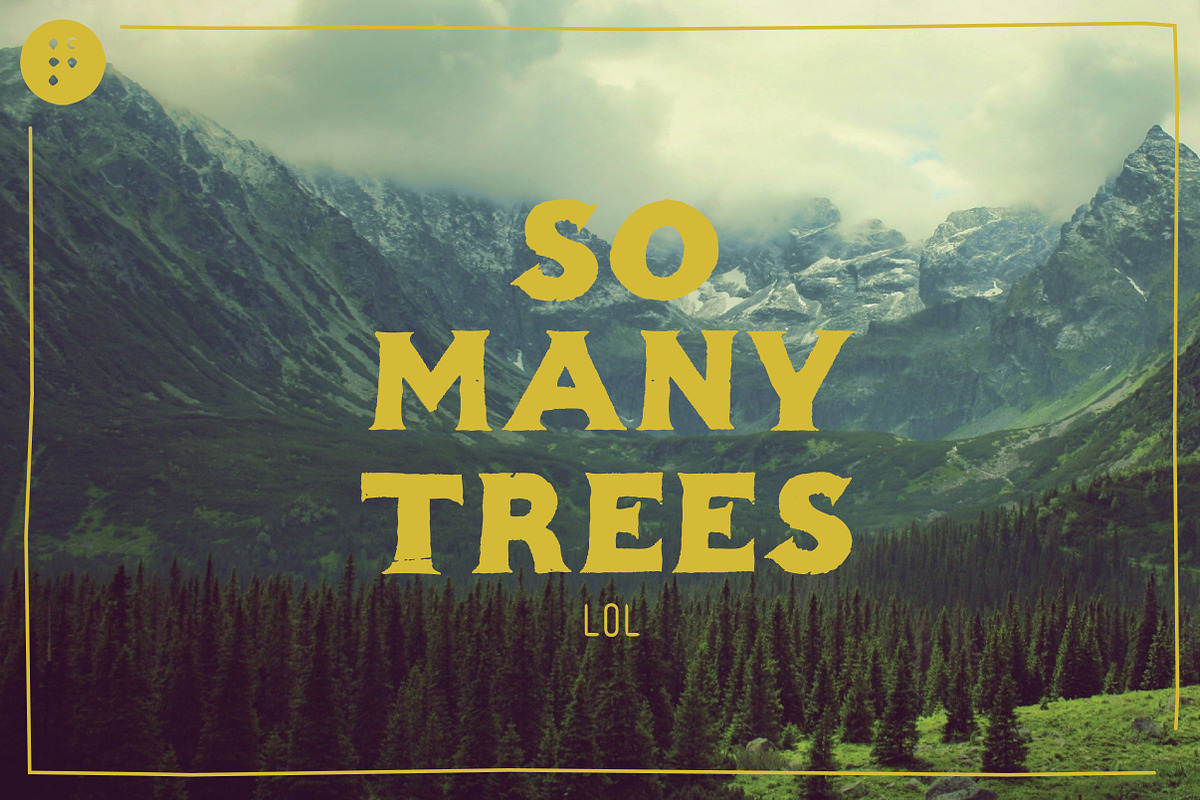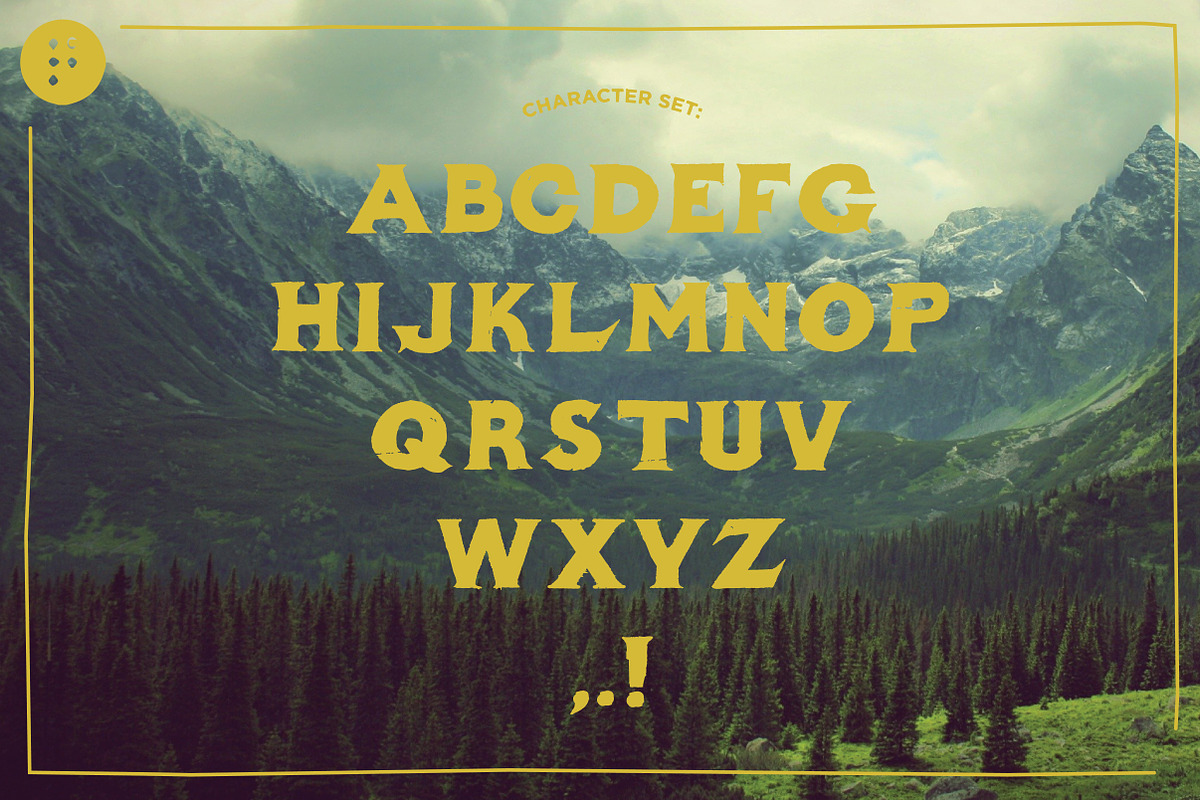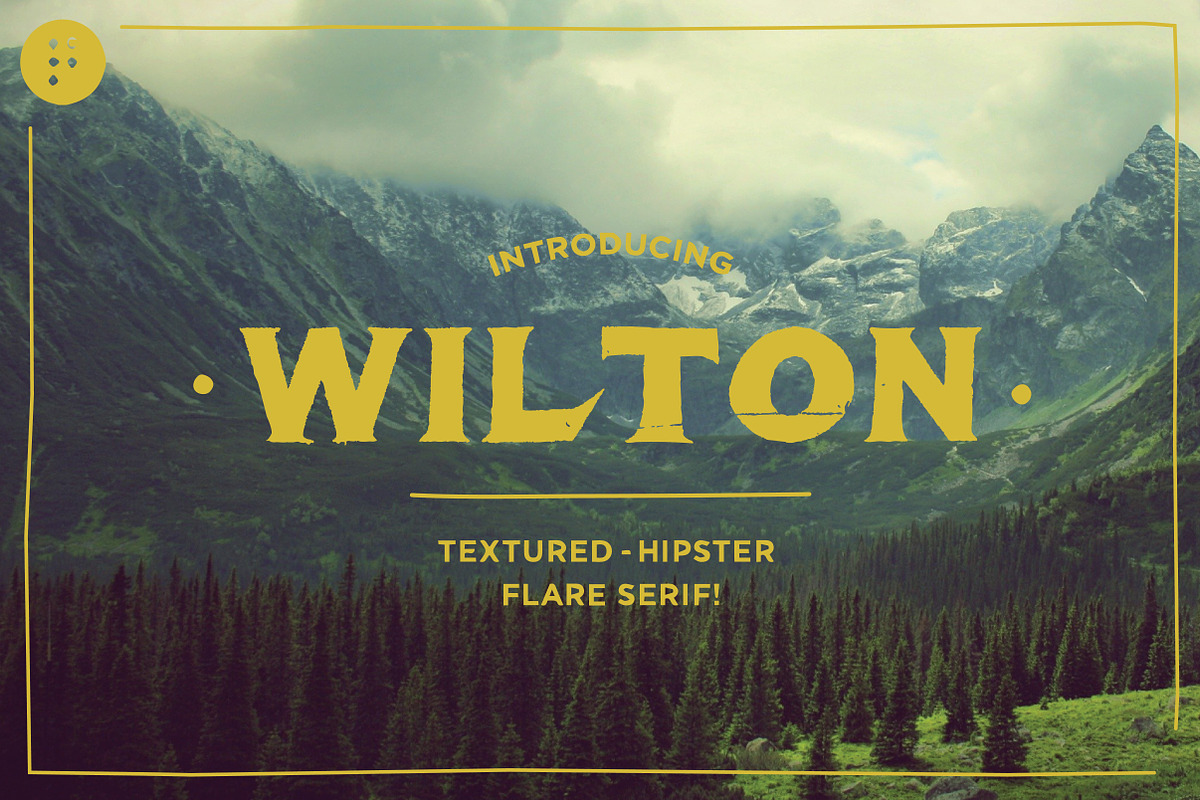
Wilton - Textured Flare Serif
Inspired and revived from a hand-painted sign, Wilton is a "Textured - Hipster", flare serif display face. If you have a beard, like craft beer, and own more leather goods than you probably should, you may need Wilton in your life.